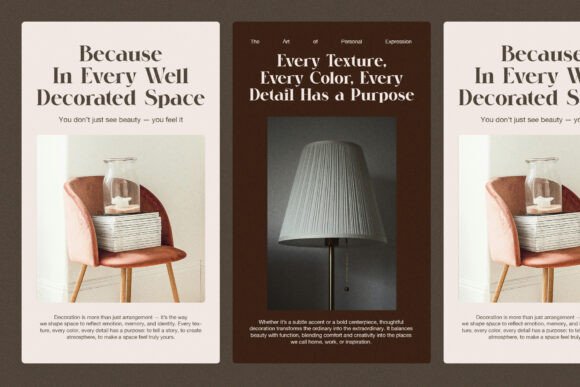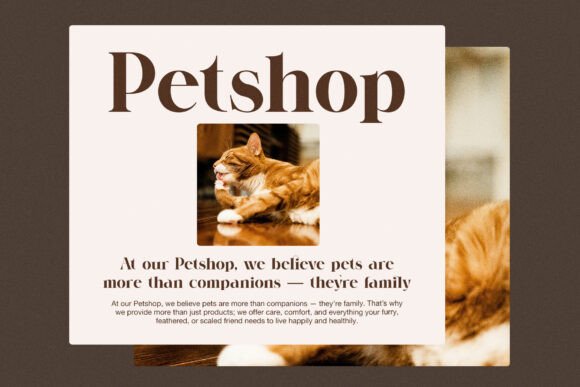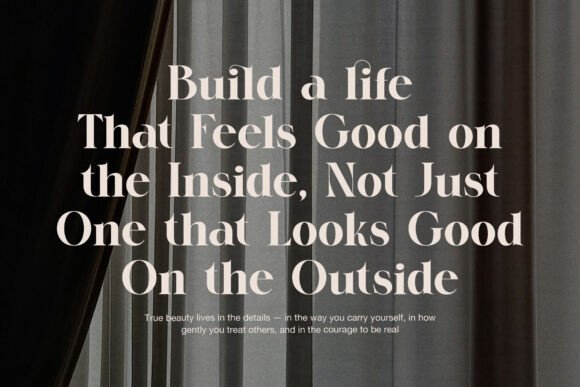
Introduction to Quling Font
Imagine you’re brainstorming ideas for a new branding project, and you’re stuck on finding the perfect font to capture your client’s unique essence. You scroll through your design library, and suddenly, you stumble upon a font that makes your heart skip a beat – a font that exudes sophistication, creativity, and a hint of luxury. This is where Quling Font comes in – a modern serif typeface that’s about to become your go-to design resource.
Whether you’re working on a high-end advertising campaign, a fashion editorial, or a luxury product label, Quling Font is the perfect addition to your design arsenal. Its sleek lines, refined curves, and distinctive serif details make it a high-quality font that’s sure to elevate your creative project to new heights.
Key Features of Quling Font
- High-quality design resource for creative projects, perfect for various applications including logos, branding, and typography.
- Unique and stylish design elements, making it an excellent choice for designers looking to add a creative touch to their projects.
Honest Review: Quling Font
As a designer, I’m always on the lookout for high-quality design resources to enhance my creative projects. The Quling Font is one such resource that caught my attention. In this review, I’ll share my honest opinion on what works well and where it falls short.
What works well: ✨ The Quling Font is available for free download, making it an excellent choice for designers who want to add a touch of elegance to their projects without breaking the bank. Its transparent background allows for seamless integration into various design elements, from logos to infographics. The font’s high-quality design ensures that it looks crisp and professional on any screen.
- Clean and modern design
Limitations: ⚠️ While the Quling Font is a great addition to any design arsenal, it’s essential to note that it may not be suitable for projects requiring a more distinctive or bold typography. Additionally, the font’s limited character set may pose a challenge for designers working on longer texts.
Overall impression: The Quling Font is a solid choice for designers seeking a high-quality, elegant font for their creative projects. Its free download and transparent background make it an excellent design resource, and its clean design ensures it will look great on any screen.
Tips for Getting the Most Out of Quling Font
Experiment with different font sizes, colors, and combinations to find the perfect look for your design. Use the Quling Font in conjunction with other design resources, such as graphics and images, to create a cohesive and visually appealing project.
The Quling Font is ideal for a variety of creative projects, including logos, business cards, social media graphics, and presentations. Its high-quality design and transparent background make it a versatile and valuable design resource.